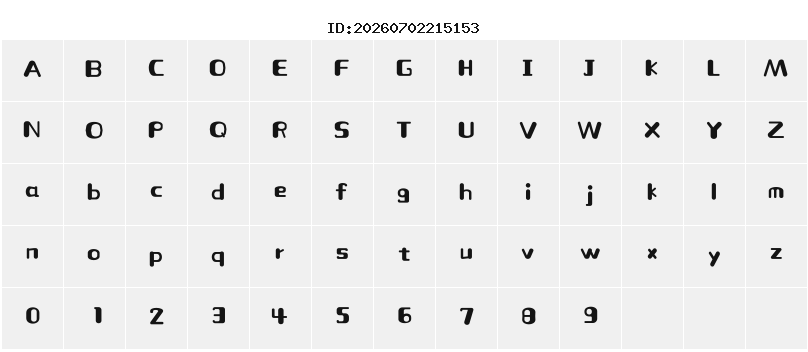
069-上首太空体 Preview
• Font Name: 069-上首太空体
• Font ID: 069-SSTaiKongTi:Version 4.00
• Full Font Name: 069-上首太空体
• Version: Version 4.00 November 30, 2021
• PostScript Name: 069-SSTaiKongTi
• Character Count: 7567
• Manufacturer: 上首造字
About 069-上首太空体.ttf
069-上首太空体.ttf is a modern, elegant sans-serif font designed for ultimate readability and visual harmony. Perfect for branding, headlines, web design, and print materials.